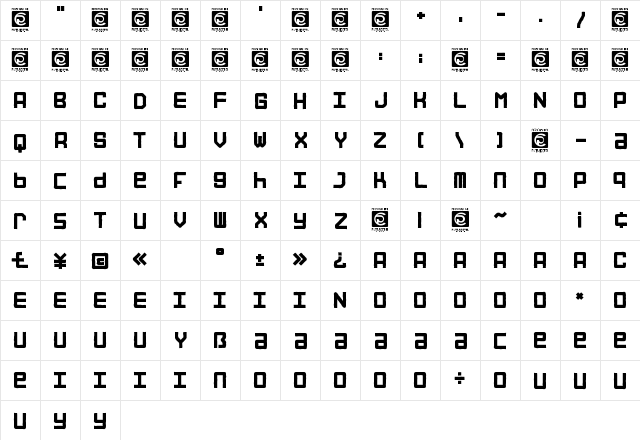
STREET ROAD Regular
| Foundry | Putracetol Studio, Karanganyar. |
| Designer | Putra Novembria Candra Kusuma |
Design Context for STREET ROAD Typeface
STREET ROAD is a composed and adaptable typeface that performs quietly and consistently across a wide range of design contexts.